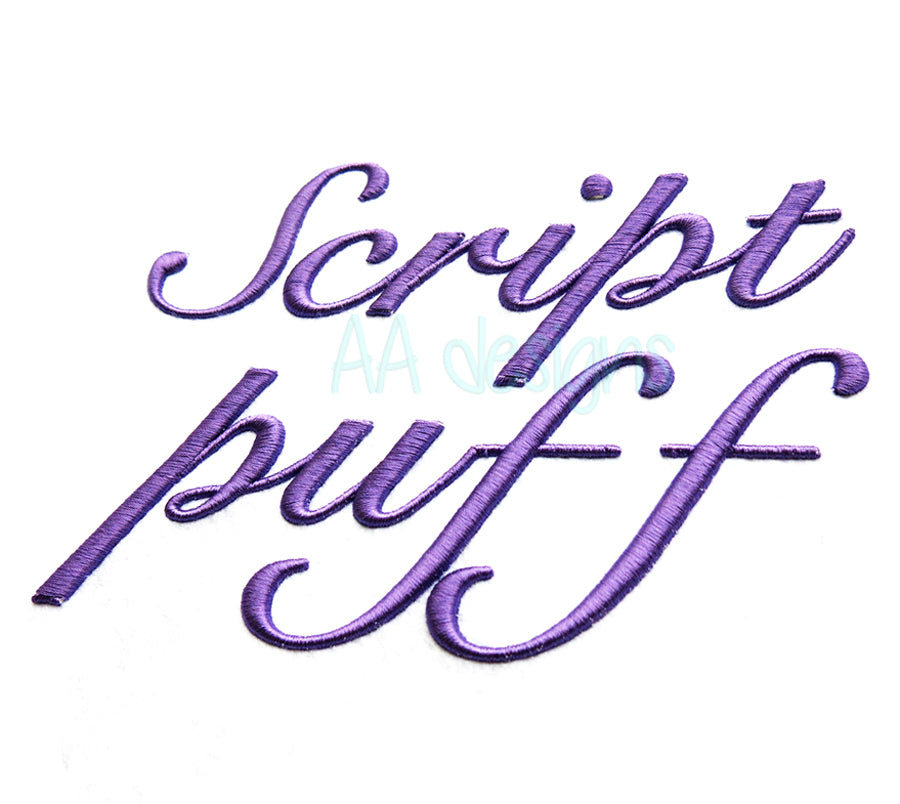
Script3D embroidery digital font.
This font comes with letters in 2 sizes, Upper case (A-Z) and Lower case (a-z). You must use 3D puffy foam to achieve the 3D effect.